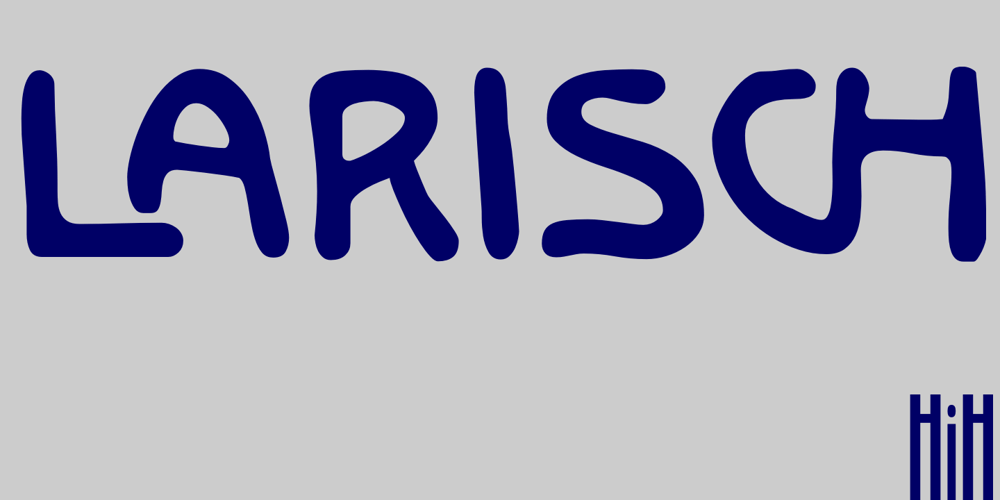
Larisch Font Family was designed by Rudolf von Larisch and published by HiH. Larisch contains 1 styles and family package options. Larisch is a hand-lettered design by the Austrian calligrapher and teacher, Rudolf von Larisch. The original was used for the title page of the 1903 edition of Beispiele Kunstlerischer Schrift (Examples of Artistic Writing). Larisch is an attractive, casual set of caps of even strokes with rounded terminals. Except for the terminals, it is similar in style to Kunstler Grotesk. The numerals are lining or ranging figures, meaning they line up with the baseline, unlike old-style text figures. All are of equal width for setting up columns of numbers. The letters are well formed and easy to read, as you would expect from a writing master. Ligatures includes CH (123), CK (125), FT (135), LA (137), LO (167), OO (172), CO (177) and TT (181. An alternative O with underscore is provided at position 111. Friendly, but not fancy — a very useful all-cap font.